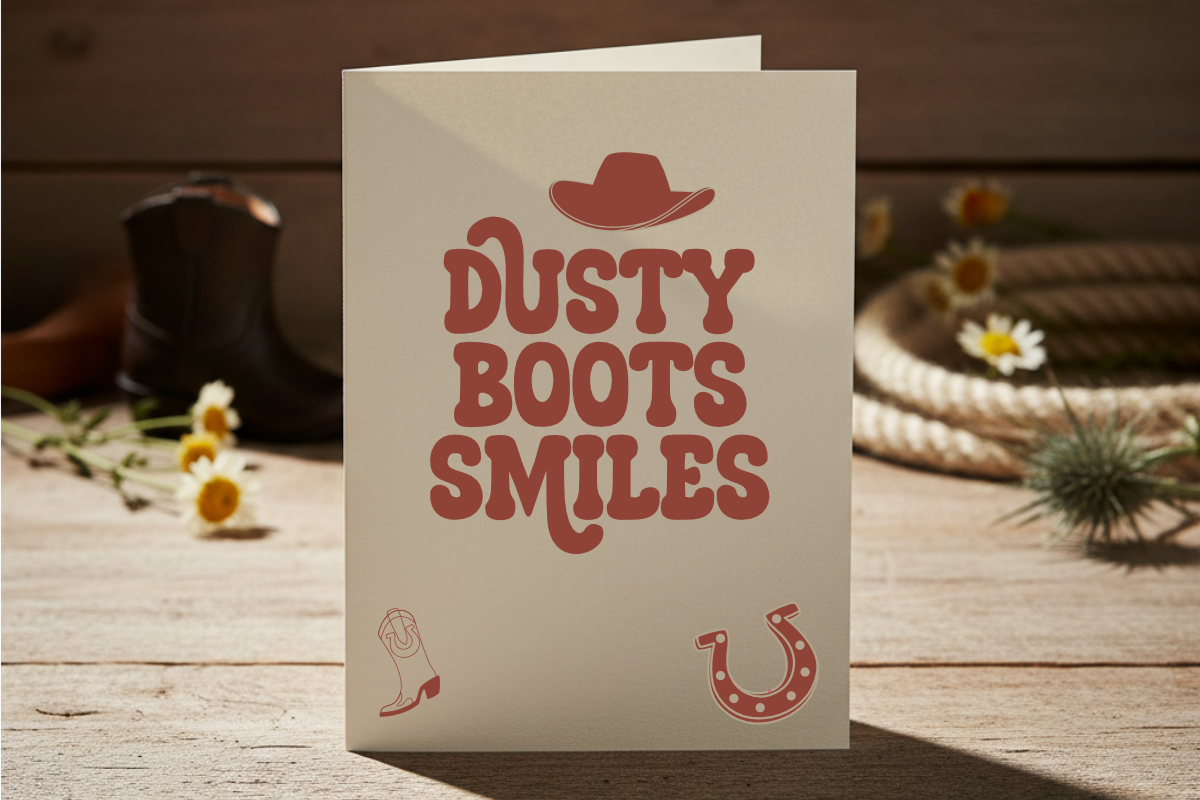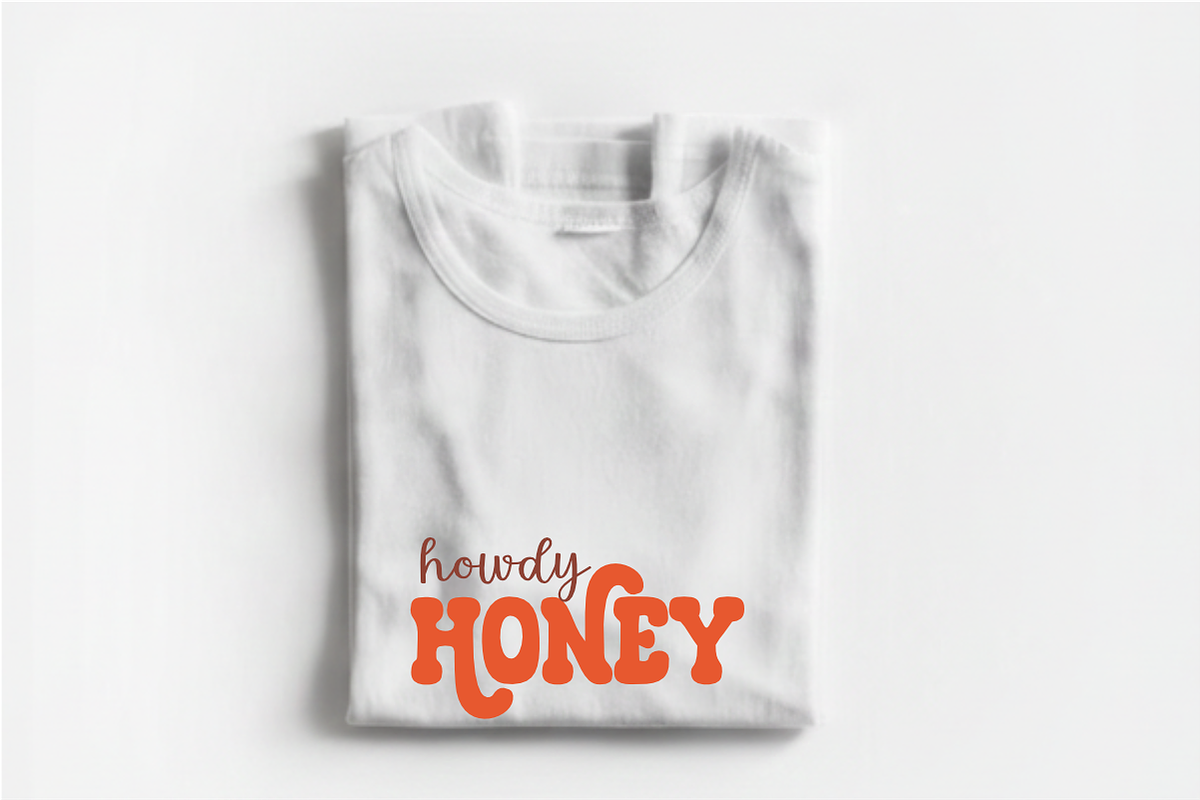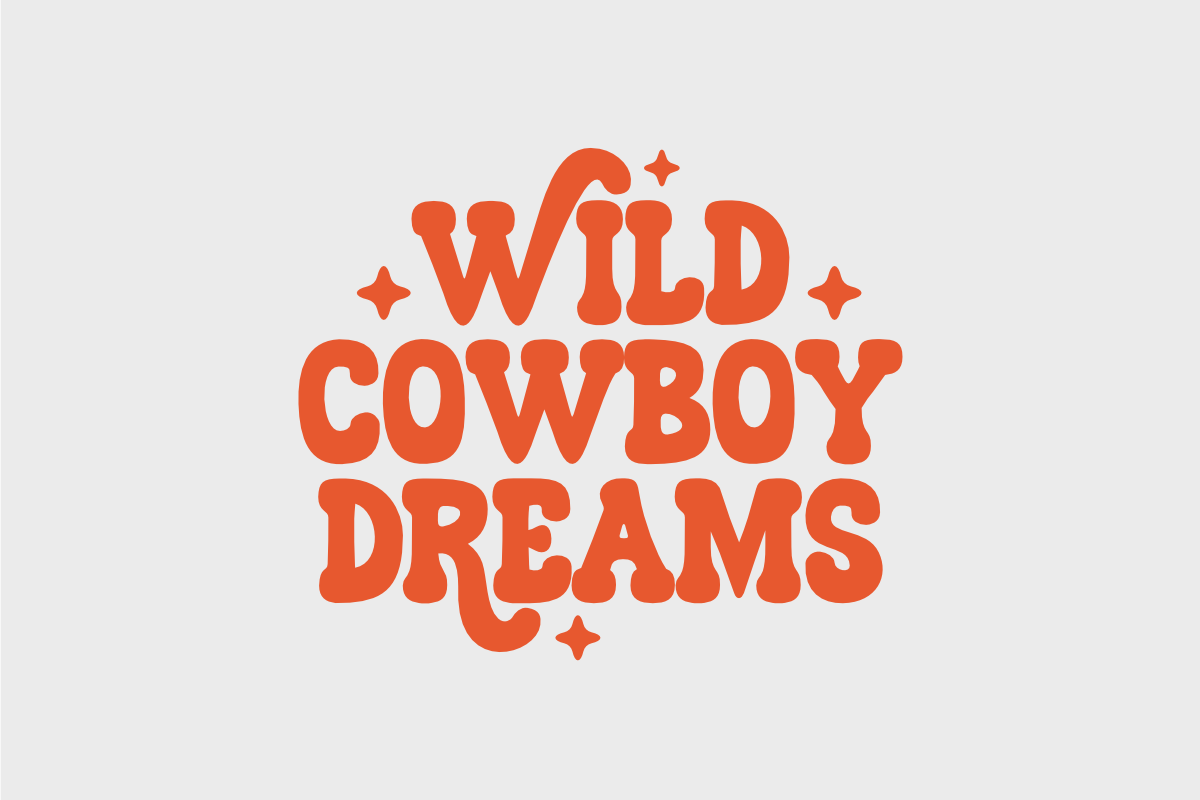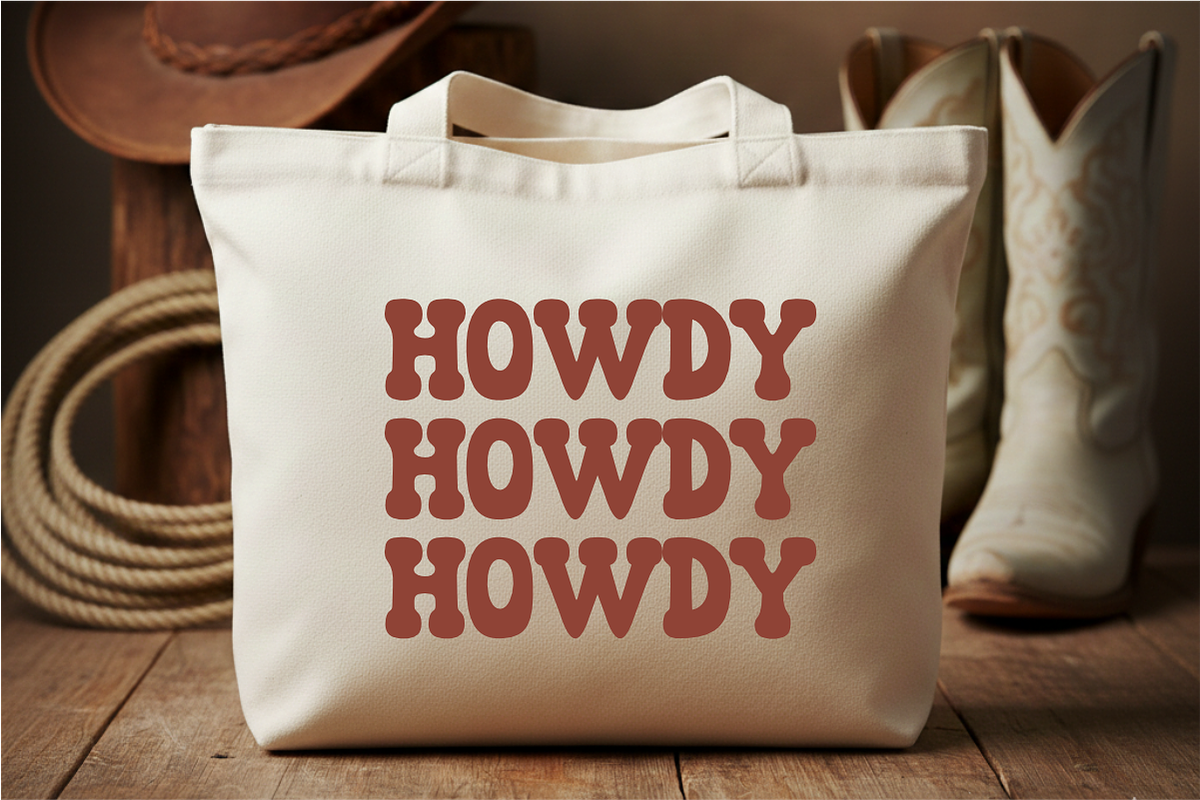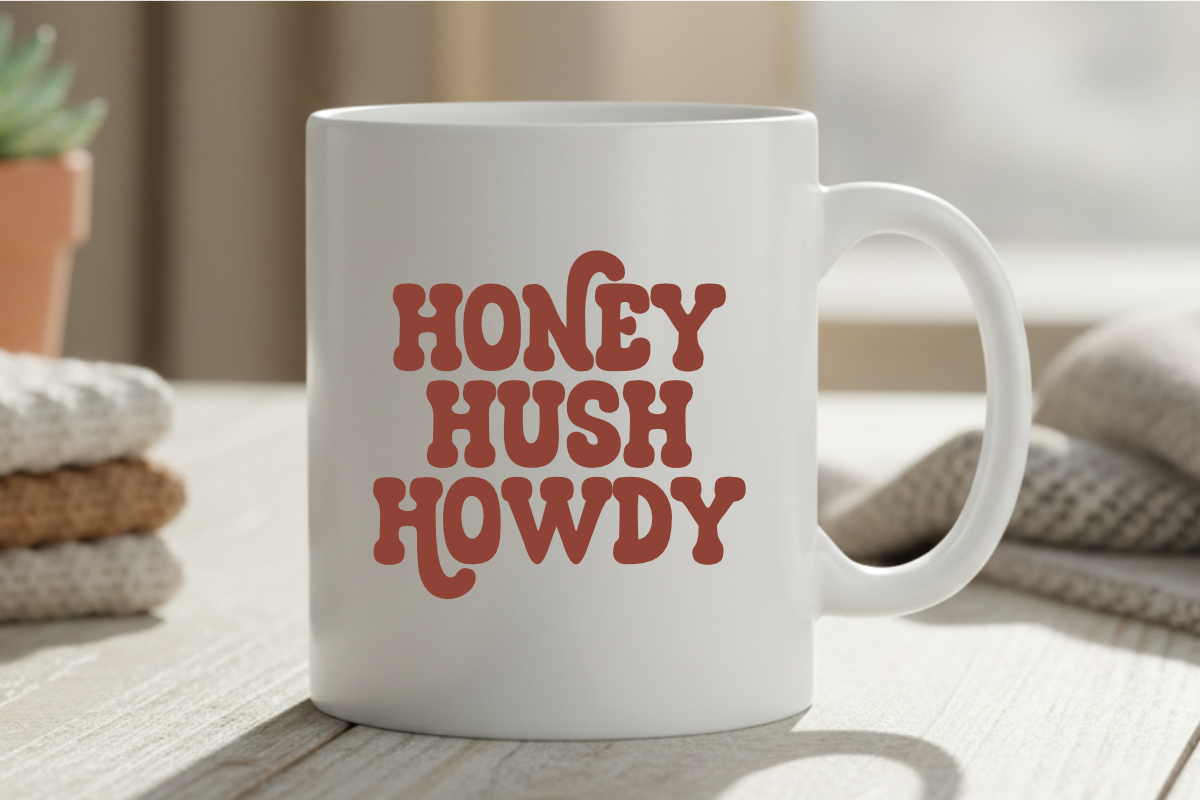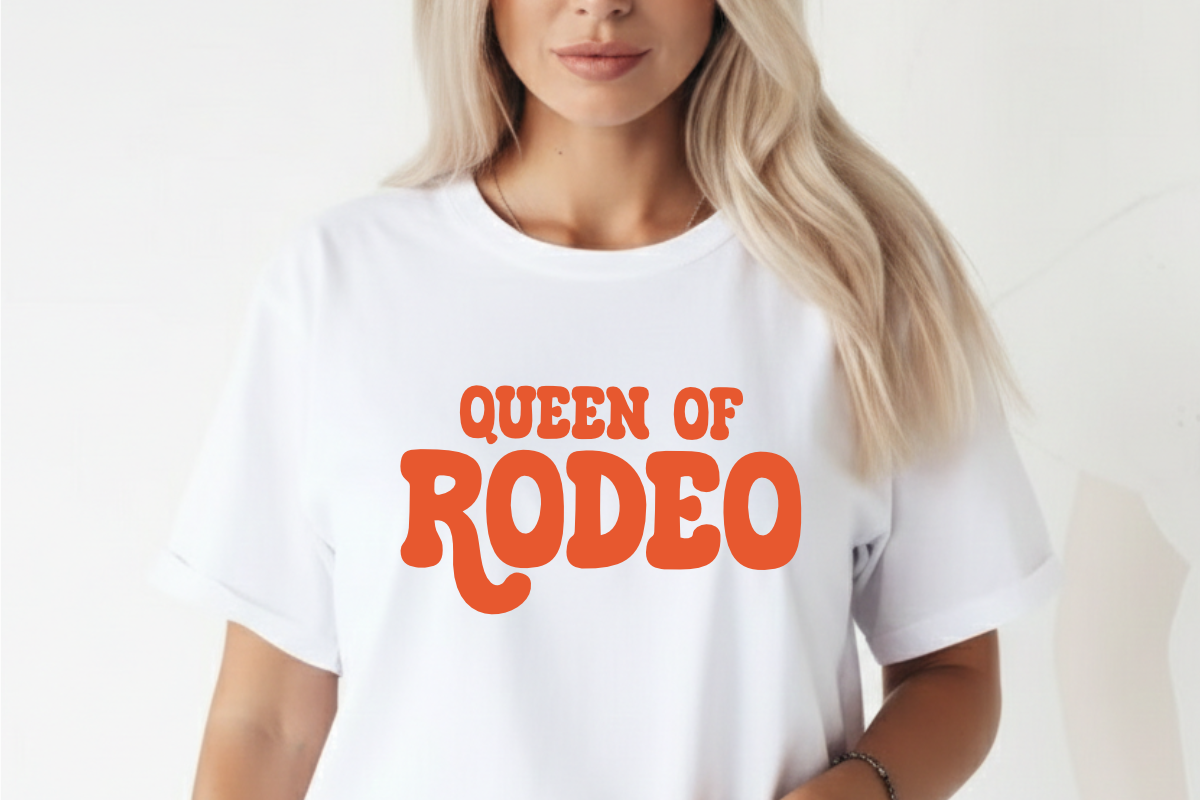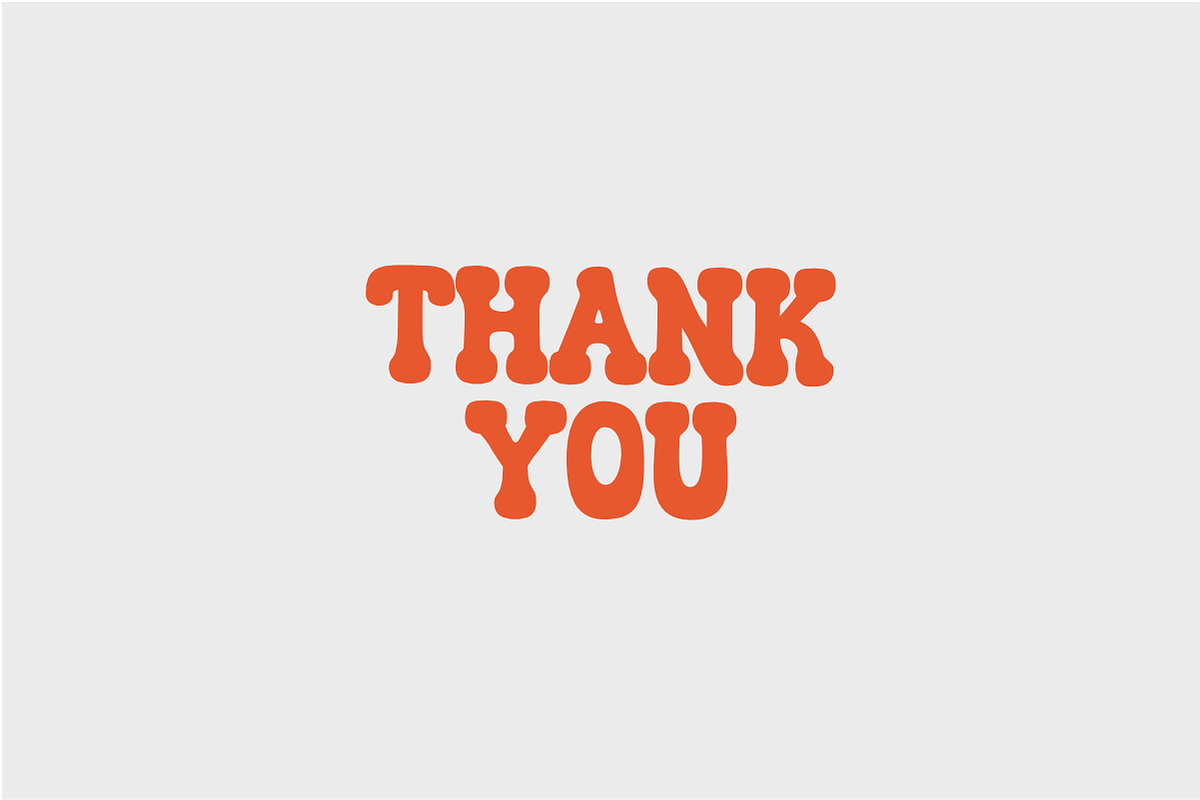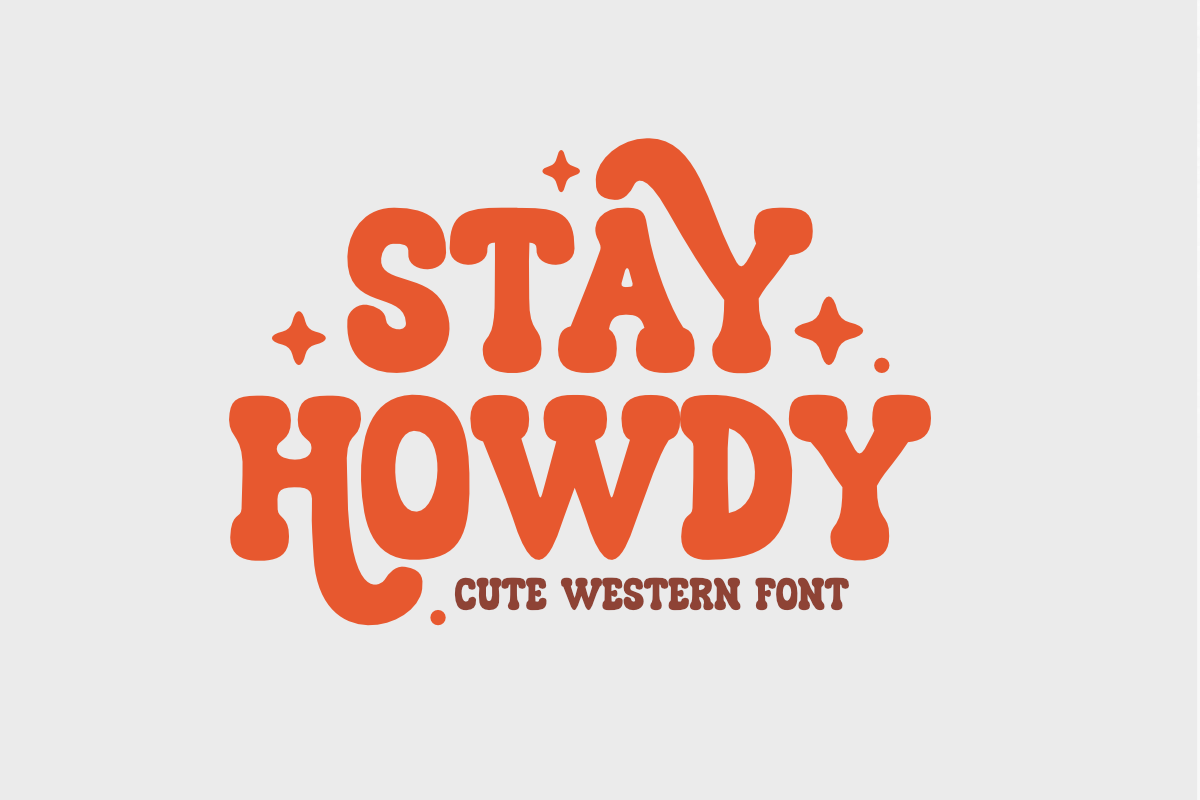
Stay Howdy - Cute Western Font
Stay Howdy is a charming cute western font that perfectly blends classic cowboy aesthetics with a playful, retro groovy vibe. This bold display typeface features bubbly, hand-drawn letterforms with a unique wavy rhythm and decorative star accents, making it an ideal choice for western-themed branding, kids' apparel, rodeo posters, and cheerful social media graphics. Its friendly and energetic look ensures your headlines stand out with a warm, handcrafted feel. Whether you are designing for a vintage-style shop, country music events, or whimsical stickers, Stay Howdy brings a lovely and creative spirit to every project.